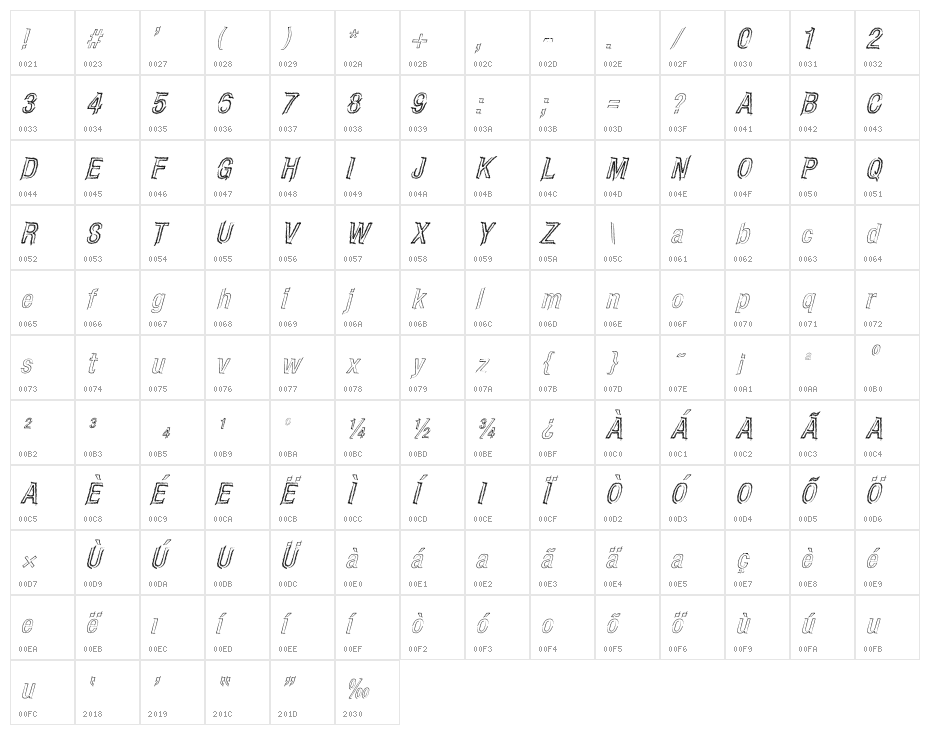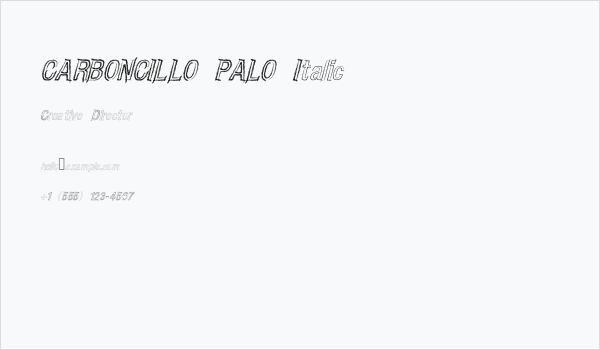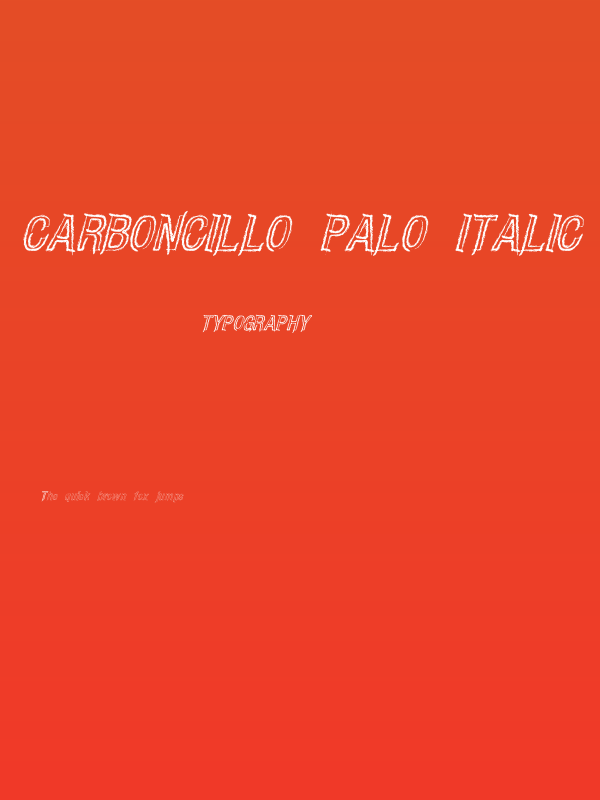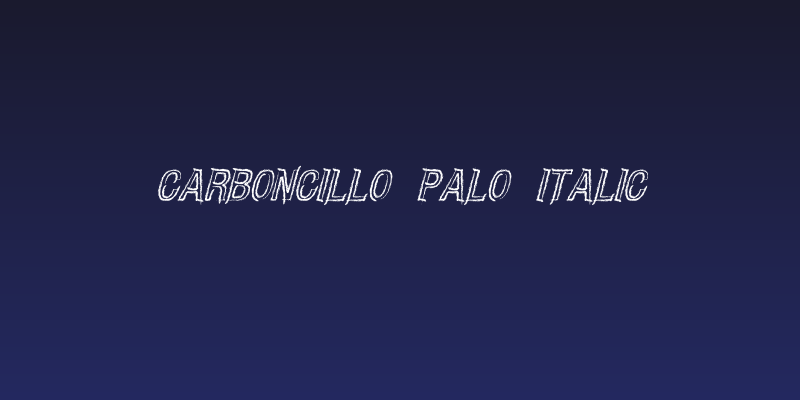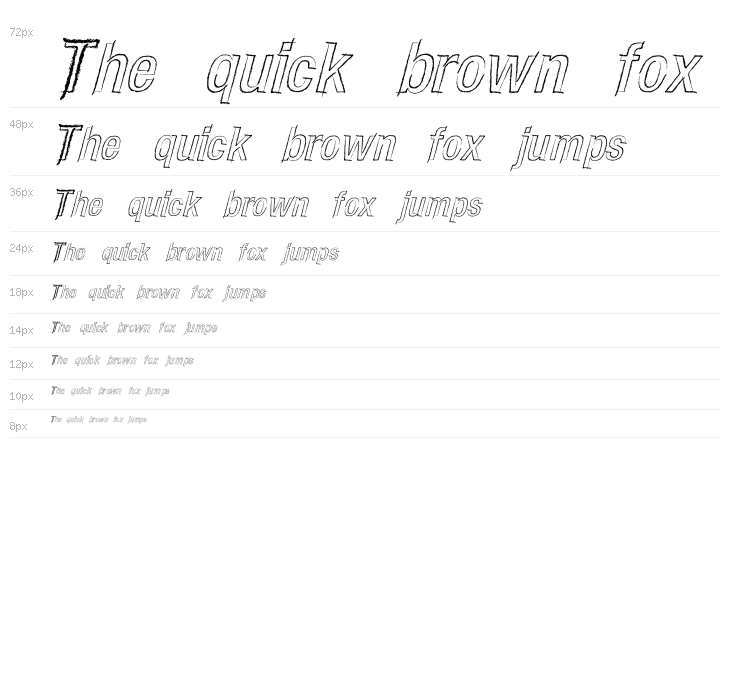
CARBONCILLO PALO Italic Font
CARBONCILLO PALO Italic Description
This font features a distinctive hand-drawn, sketch-like appearance with an italic slant, giving it a dynamic and artistic feel. The uppercase and lowercase letters are consistent in their rough, textured lines, creating an informal yet stylish look. The numerals and special characters maintain this sketchy aesthetic, ensuring a cohesive design throughout. The font's unique style makes it stand out, with each character appearing as if it has been carefully drawn with a pencil or charcoal, adding a personal touch to any text.
| Overall Style | Artistic, Hand-drawn |
| Use Case | Headlines, Artistic projects, Branding |
| Proposed Projects | Ideal for creative projects such as art posters, invitations, or branding that requires a personal, artistic touch. |